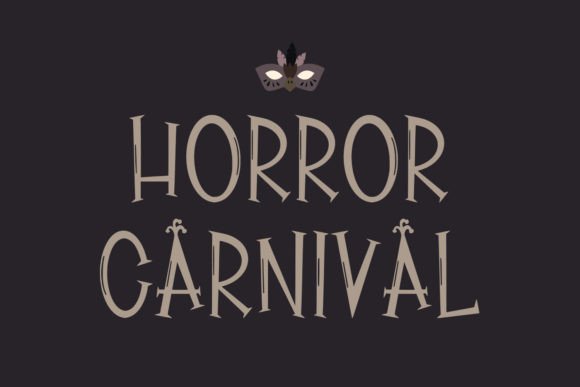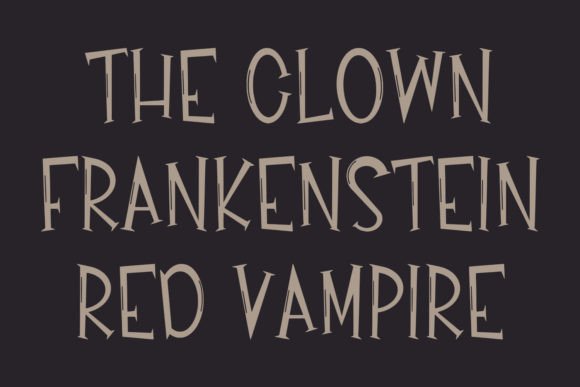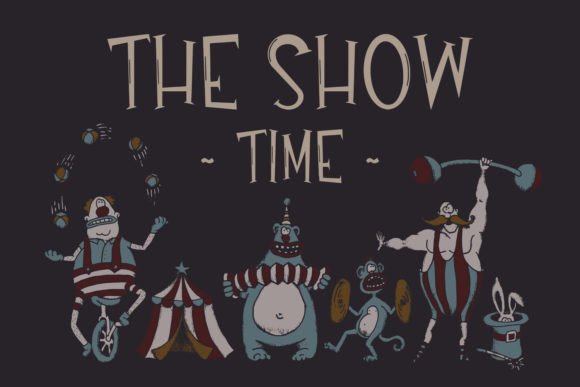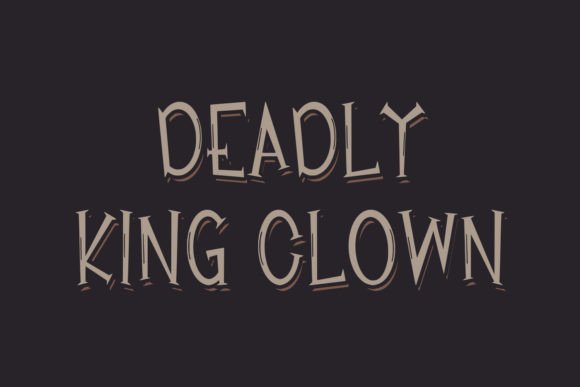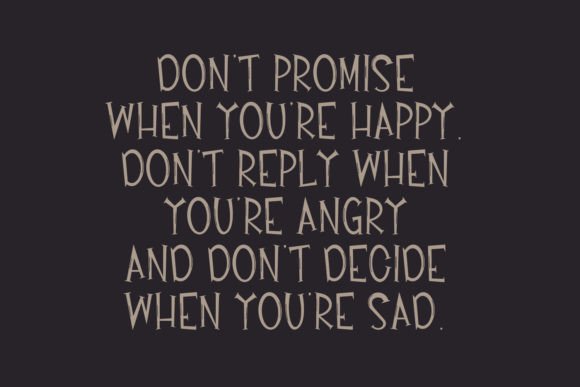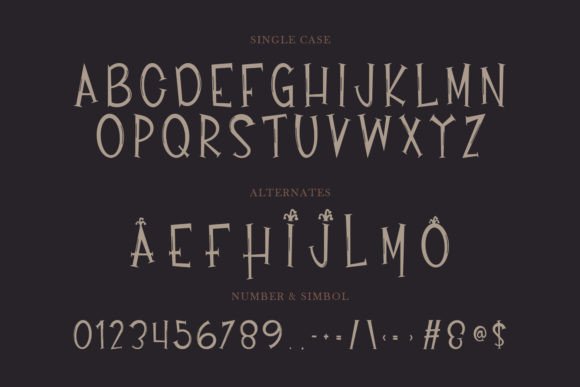
The Perfect Blend of Horror and Whimsy: Unleashing the Power of Carnifun Font
Have you ever stumbled upon a font that perfectly captures the essence of a dark and mysterious tale? For designers and creatives, finding the right font can be a game-changer, transporting your audience to a world of wonder and awe. For me, that moment came when I discovered the Carnifun horror circus display font – a mesmerizing blend of macabre and whimsy that has since become a staple in my design arsenal.
The Carnifun Font is a masterfully crafted display font, designed to add an air of sophistication and intrigue to any project. From logo design to social media graphics, book titles to movie posters, this font is the perfect companion for creatives looking to add a touch of horror and whimsy to their work. Its versatility makes it an invaluable asset for designers, allowing them to create stunning visuals that captivate and intrigue their audience.
- Unique Characteristics: Carnifun Font features a unique, hand-drawn design with bold lines and playful curves, making it ideal for use in creative and artistic projects.
Carnifun Font Review
First off, let’s get into what I love about this font: ✨ the unique blend of eerie and playful vibes ✨. It’s like a dark carnival on the screen, and I can totally see it being used in a horror movie title or a creepy theme park logo. The bold lines and quirky characters really stand out.
Another great aspect is the ✨ wide range of styles ✨, from bold and daring to light and mysterious. This font has a lot of depth, and it’s not just a one-trick pony. You can use it for titles, headings, or even body text, and it’ll always bring a bit of flair to your design.
- ⚠️ The font might be a bit too over-the-top for some designs ⚠️. If you’re going for a more subtle look, you might want to tone it down a notch.
- ⚠️ Some characters might be a bit tricky to read, especially in smaller sizes ⚠️. Make sure to test it out before using it in a critical design.
Overall, I think Carnifun Font is a great addition to any designer’s toolkit. It’s a bold, eye-catching font that’s perfect for when you want to make a statement. Just be mindful of its limitations, and you’ll be golden.
Tips for Getting the Most Out of Carnifun Font
Here are some tips to get the most out of Carnifun Font:
- Use Carnifun Font for titles and headings to add a touch of elegance.
- Combine Carnifun Font with other fonts for a unique and playful look.
Carnifun Font is ideal for:
- Designing invitations and event materials.
- Creating digital products and online courses.
- Choose a bold font size to create a dramatic effect.
- Use a darker color palette to enhance the spooky atmosphere.
- Combine the font with creepy graphics and images to create a haunting poster.
- Use a distressed texture to give the poster a worn and aged look.
- Combine with creepy silhouettes or shadows to create a sense of depth and foreboding.
- Use a subtle gradient to give the title a sense of movement and energy.
- Choose a font size that’s proportional to the size of the book.
- Use a metallic color palette to give the title a sense of industrial chic.
- Combine the font with steampunk-inspired graphics and illustrations to create a unique and captivating cover.
- Use a distressed texture to give the cover a worn and aged look.
Creative Project Ideas Using Carnifun Font
Project 1: Horror Movie Poster Design
The Carnifun Font is perfect for creating a spooky and eerie atmosphere, ideal for horror movie posters. Use it to create a bold and eye-catching title that grabs the audience’s attention.
Project 2: Steampunk-Inspired Book Cover Design
The Carnifun Font has a unique, industrial feel that’s perfect for steampunk-inspired book covers. Use it to create a title that’s both futuristic and nostalgic.